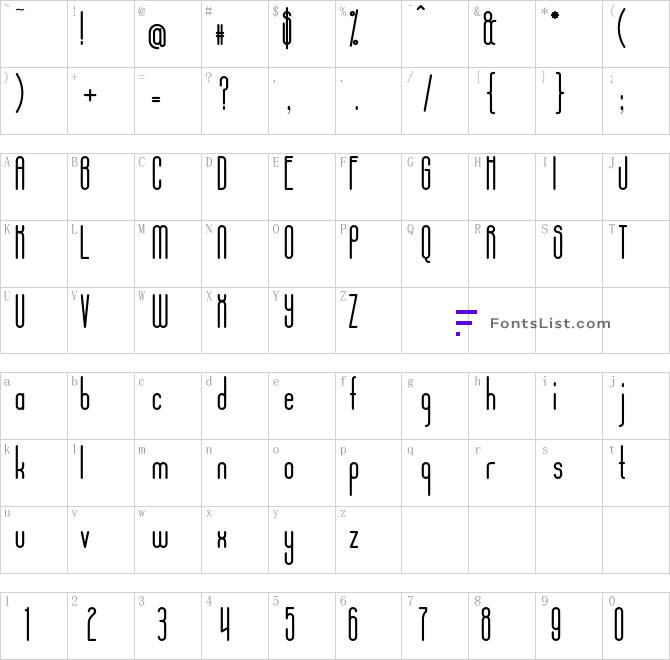
- Font Name:Aposiopesis Condensed
AposiopesisCondensed.otf is a very beautiful artistic font, AposiopesisCondensed.otf is widely used in the design and printing of various books and pictures,AposiopesisCondensed.otf has a strong visual impact,AposiopesisCondensed.otf is a commonly used font in newspapers, magazines and books, and is used in posters, e-commerce Poster design, store design, logo design, font design and other fields.AposiopesisCondensed.